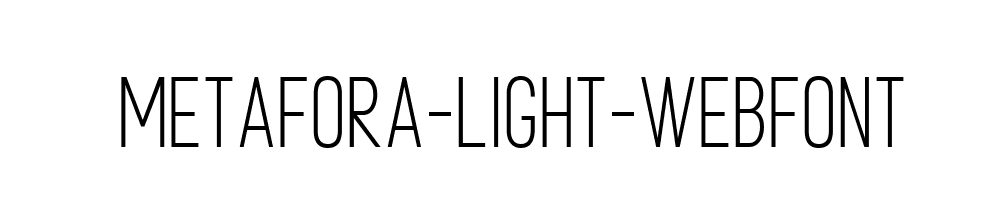
metafora-light-webfont
About metafora-light-webfont
Font Weight Name: metafora-light-webfont, Font Family: , designed by . This font is part of the family, licensed with , and manufactured by . The current version is “metafora-light-webfont”. The font has a subtle mix of elegance and expressiveness highlighted by its clean lines and smooth curves. The uppercase letters feature a gentle arc and sharp apex, while the lowercase letters have a slight slant and delicate serifs. The ascenders are tall and graceful, contrasting beautifully with the compact descenders. The bowls are generous, and the counters are open, giving the font a light and airy feel. The terminal of the S has an interesting spur, adding a unique touch to the overall design. The stress is evenly distributed, creating a harmonious flow across all characters. Overall, metafora-light-webfont exudes a sense of classic sophistication with a touch of warmth, making it the perfect choice for elegant and friendly designs.